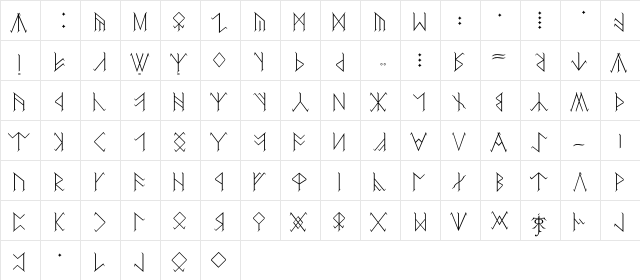
Certar Regular Font Preview
Certar Regular
Design Context for Certar Typeface
Certar takes a measured approach to typography — its balanced proportions and neutral character make it a reliable workhorse for both digital and print work.